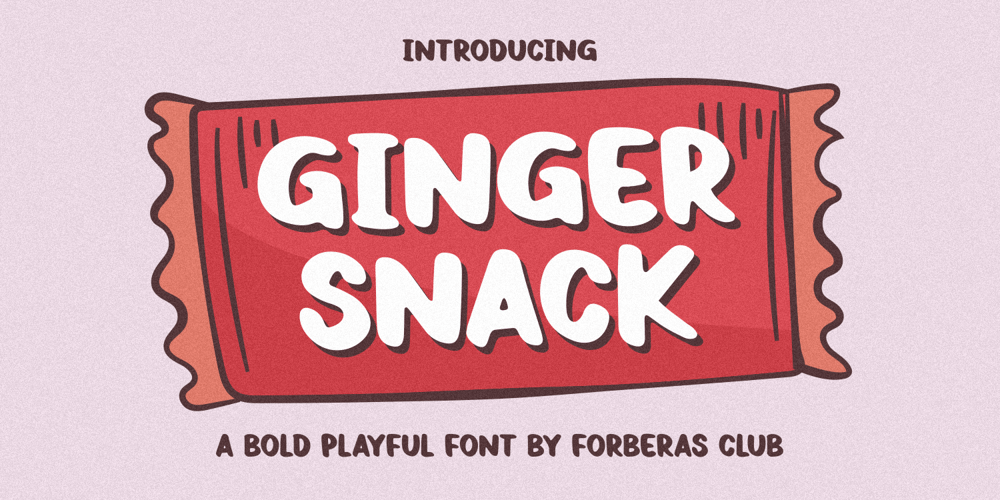
Ginger Snack
Ginger Snack font
Ginger Snack Font Family was designed by ANGGI HERMAWAN and published by Forberas Club. Ginger Snack contains 1 styles and family package options. Ginger Snack is a Handwritten Script font that will make your designs look classic, Farmhouse, Boho, and Feminine. It is a great font for events, Wedding Project, signature, album covers, logos, branding, magazines, social media posts, advertisements, but it also works great for other projects. Add it to your fonts’ library, and it will enhance your creativity!